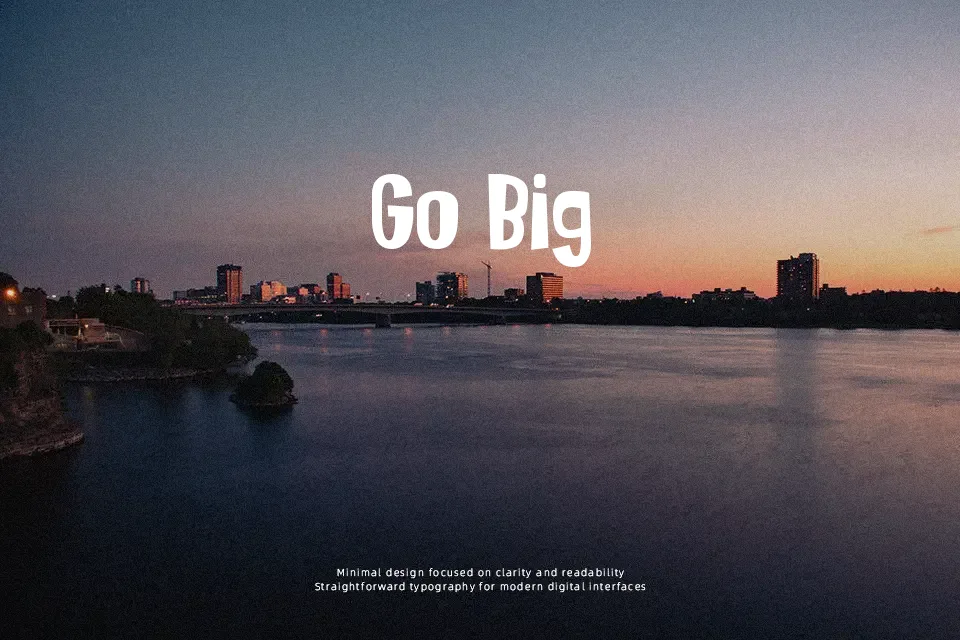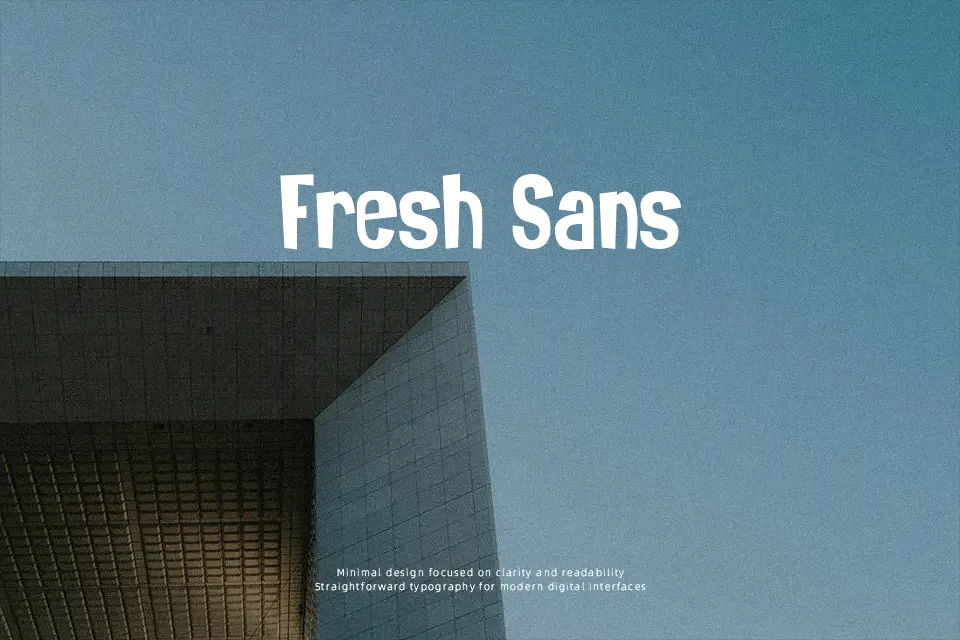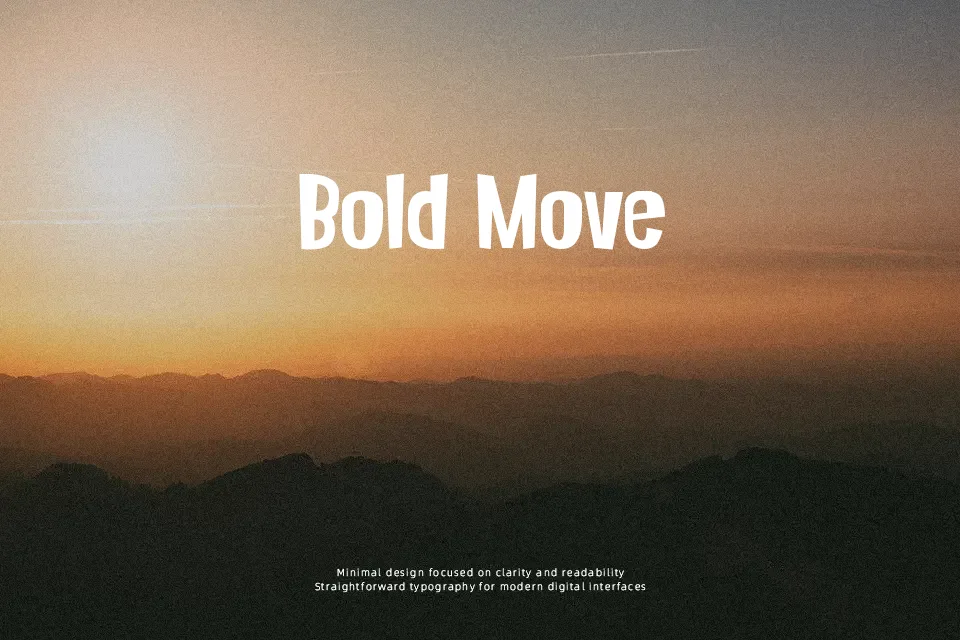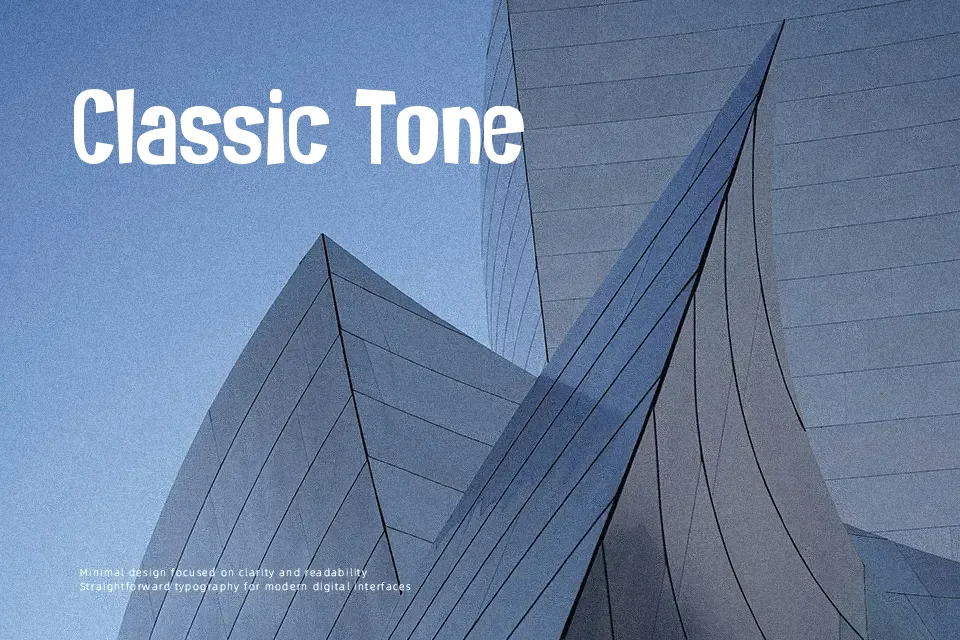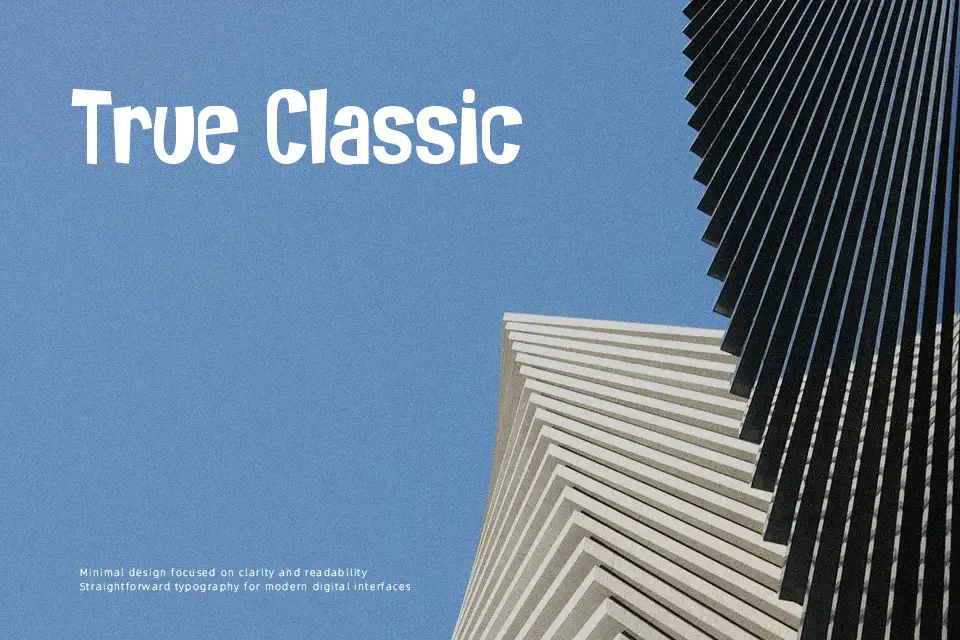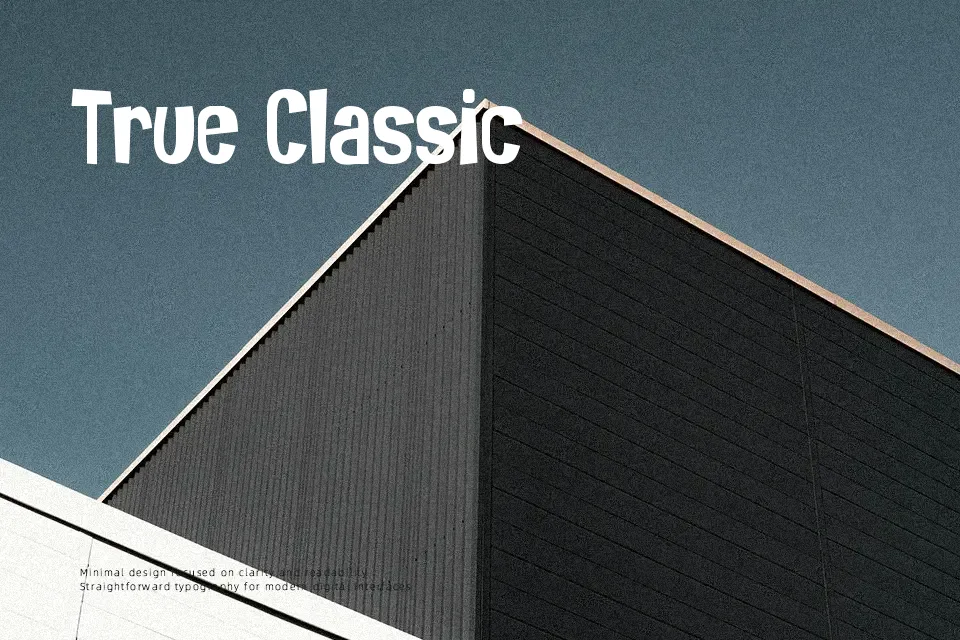
Bruteforce Font
Bruteforce delivers a dynamic burst of energy through its thick, bouncy letterforms and slightly exaggerated curves. This sans-serif comic display font features smooth, organic lines that naturally convey a lighthearted, hand-drawn charm. The heavy stroke weight ensures excellent readability for large text formats while maintaining an inviting and quirky personality. Designers will find it especially effective for injecting humor and excitement into gaming interfaces, YouTube thumbnails, and vibrant event posters aimed at kids or teenagers. However, its inherently playful and informal structure makes it unsuitable for serious corporate branding, luxury editorial layouts, or dense blocks of body copy. Compared to rigid block fonts, Bruteforce brings a much-needed sense of spontaneous fun to any casual design project.
Crafting vibrant gaming interfaces and streaming overlays
Designing engaging posters targeting children and teens
Creating eye-catching headlines for lighthearted social media content
Formatting dense paragraphs in editorial layouts
Establishing authority in serious corporate identity systems
Designing minimalist luxury product packaging